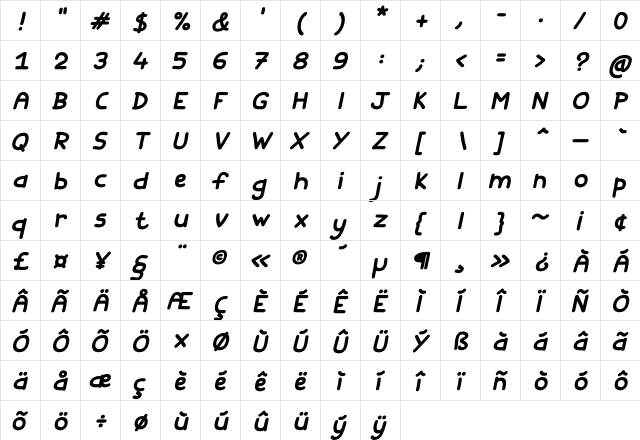
Fishes Friends Bold Italic
| Foundry | Youssef Habchi |
| Designer | Youssef Habchi |
Design Context for Fishes Friends Typeface
Fishes Friends is a composed and adaptable typeface that performs quietly and consistently across a wide range of design contexts. Its italic angle brings a sense of urgency and motion to the letterforms. Its bold stroke weight gives it real presence on the page.
Pro Tip: Use Fishes Friends for emphasis, pull quotes, and subheadings where its slanted energy can add rhythm to the layout.